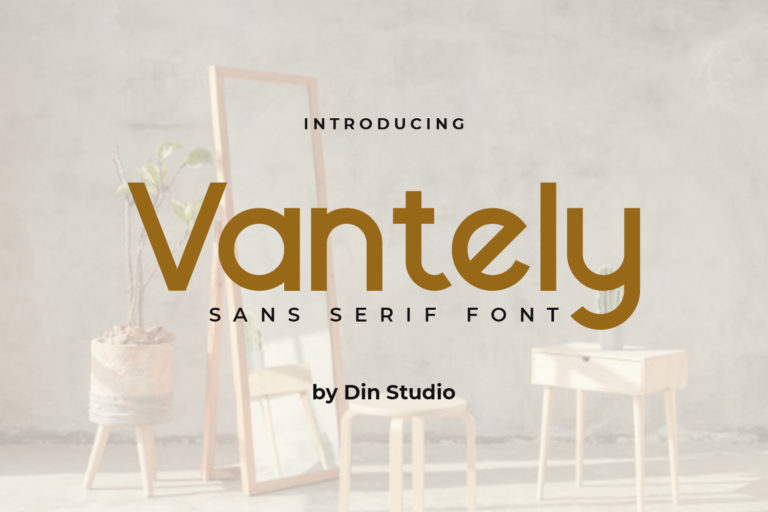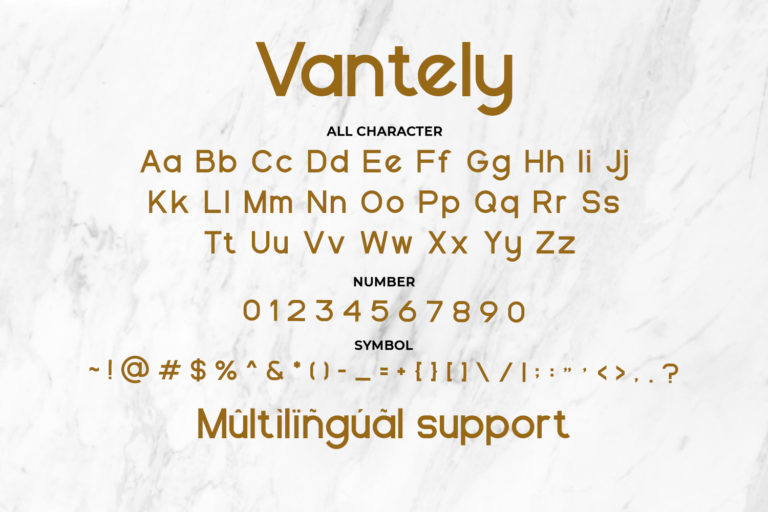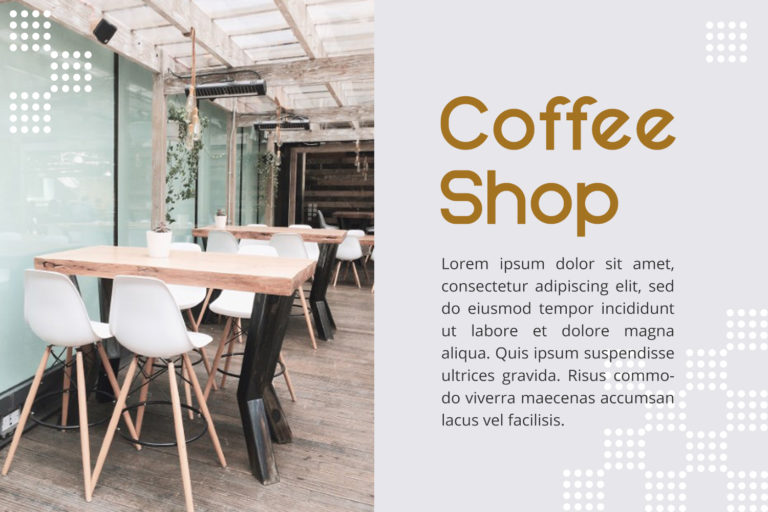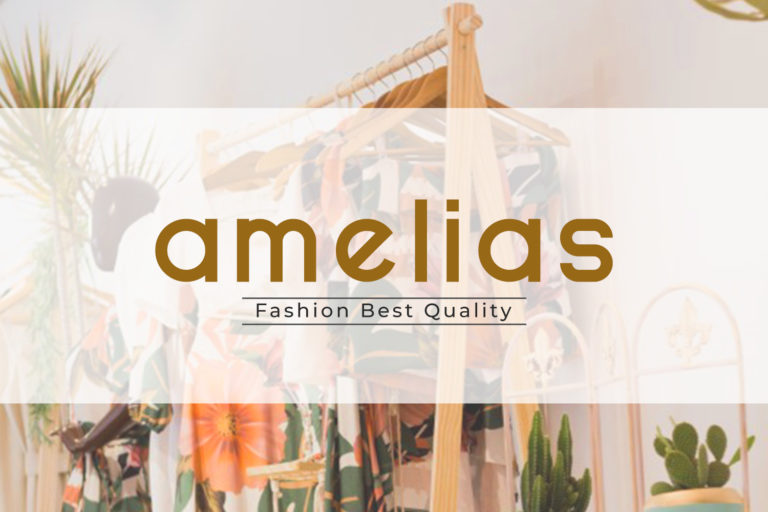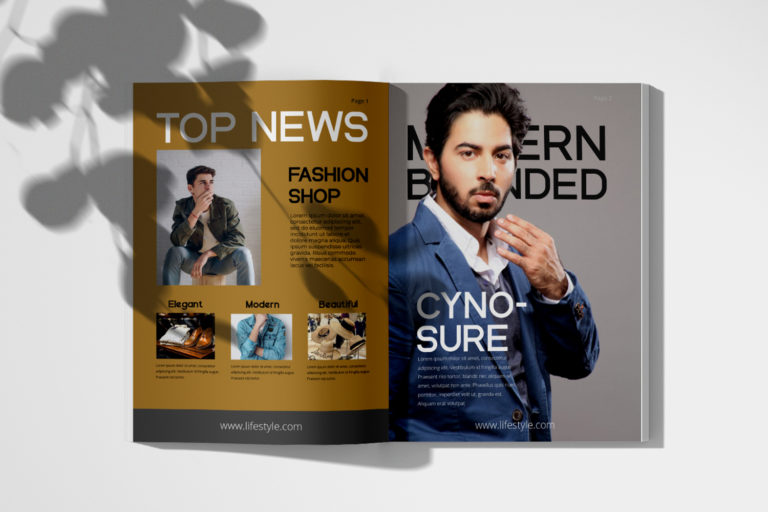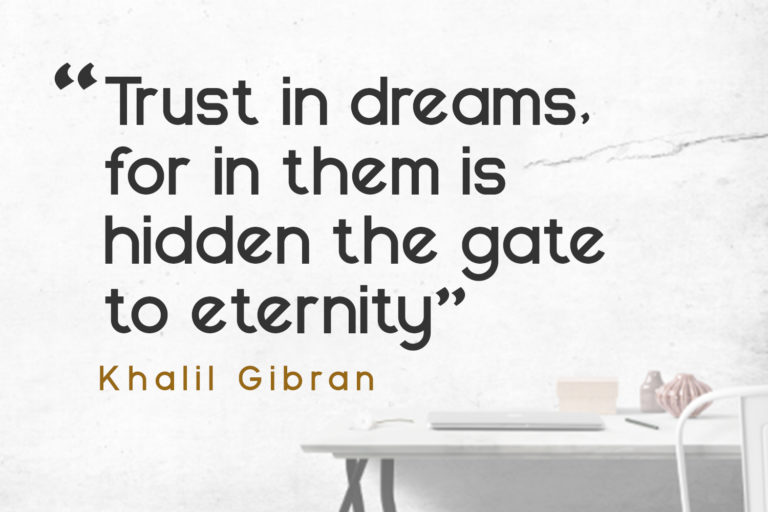
Vantely – Modern Sans Serif Font
Vantely
Vantely is a modern sans serif font made for any professional project brandings. It is perfect for printing, cards, packaging, invitations, merchandise, branding and quotes. Every letter has a unique and beautiful touch. See the previews above to get some inspiration on how you can use them. Happy designing!
Afrikaans, Albanian, Asu, Basque, Bemba, Bena, Breton, Catalan, Chiga, Cornish, Danish, Dutch, English, Faroese, Filipino, Friulian, Galician, German, Gusii, Indonesian, Irish, Italian, Kabuverdianu, Kalenjin, Kinyarwanda, Luo, Luxembourgish, Luyia, Machame, Makhuwa-Meetto, Makonde, Malagasy, Manx, Morisyen, North Ndebele, Norwegian Bokmål, Norwegian Nynorsk, Nyankole, Oromo, Portuguese, Quechua, Romansh, Rombo, Rundi, Rwa, Samburu, Sango, Sangu, Scottish Gaelic, Sena, Shambala, Shona, Soga, Somali, Spanish, Swahili, Swedish, Swiss German, Taita, Teso, Uzbek (Latin), Vunjo, Zulu